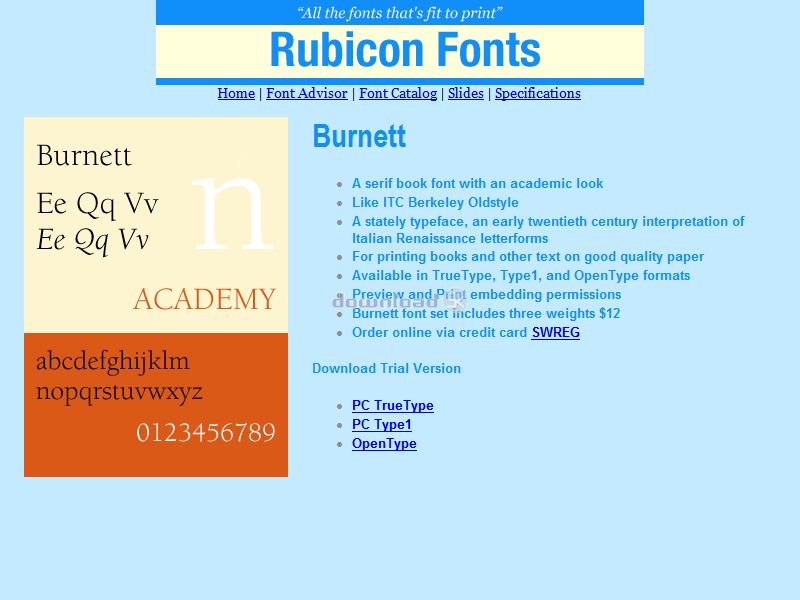
"Serif book font, academic look"
A serif book font with an academic look. Like ITC Berkeley Oldstyle. For printing books and other text on good quality paper. A stately typeface, an early twentieth century interpretation of Italian Renaissance letterforms. Recommended size 12 points. Accurate and hinted, matching font metrics, standard character set, kerning pairs. Professional print quality for inkjet, laser, typesetter to 3500 dpi. Purchasers receive 3 font variants as follows: Roman, Italic, Bold.Requirements: No special system requirements.